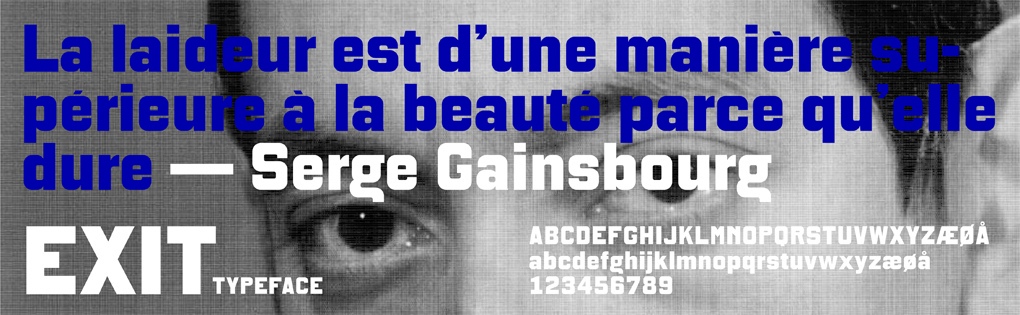
Exit Font
Exit Font is perfect for emergency signage systems, safety equipment labeling, evacuation plan documentation, industrial safety materials, architectural wayfinding projects, public building signage, security system interfaces, and emergency services communications where clear visibility and immediate recognition are critical.
What makes Exit Font so exciting is its commanding ability to communicate urgency and directional clarity through bold, unmistakable letterforms that ensure instant recognition in emergency situations while maintaining exceptional legibility under stress conditions. The authoritative character design reflects the life-saving importance and regulatory compliance required for effective safety signage systems.
The Exit Font family includes regular, bold, condensed, and high-visibility variants, with safety-inspired elements and emergency signage ornaments that provide comprehensive tools for creating compliant safety branding and emergency communication design systems.
This essential typeface represents the cornerstone of safety communication design, combining regulatory compliance with contemporary visibility standards. The Exit Font Free Download gives safety professionals access to typography that communicates emergency information with absolute clarity and authority.
The font's high-contrast character construction and optimized spacing create immediate recognition even in low-light emergency conditions. Each letterform has been designed to maximize visibility and comprehension during high-stress situations when clear communication can mean the difference between safety and danger.
Exit Font excels in creating life-saving communication systems that guide people to safety efficiently and effectively. The typeface's commanding presence makes it ideal for architects, safety engineers, and facility managers responsible for emergency preparedness and building code compliance.
From hospital evacuation routes to industrial facility safety systems, this font delivers the critical visibility needed for effective emergency communication and regulatory compliance. The versatile design maintains its safety-first character across both traditional printed signage and modern digital emergency notification systems.